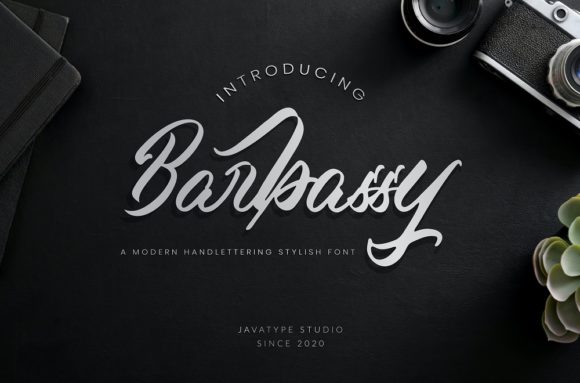
Embark on a typographic journey with Barbassy Font, a script font family that exudes timeless elegance and modern charm. Immerse yourself in the world of handwritten artistry, where each letter dances across the page with grace and fluidity. Created by the skilled hands of javatypestd, Barbassy is more than just a font – it's an experience that captivates the senses and leaves a lasting impression.
Step into a realm of creativity where Barbassy's delicate strokes and enchanting curves take center stage. Its meticulously crafted characters possess a raw, authentic charm that adds a touch of sophistication to any design project. Whether you're crafting wedding invitations that whisper romance, heartfelt thank-you cards that convey gratitude, or captivating quotes that inspire the soul, Barbassy is your perfect companion.
With Barbassy, your designs will transcend the ordinary and enter the realm of the extraordinary. Its versatility extends far beyond the confines of traditional handwritten fonts. It seamlessly adapts to a myriad of design genres, from logos that demand attention to business cards that leave a lasting impression. Unleash your creativity and let Barbassy guide you through a world of endless possibilities.
Indulge in the beauty of Barbassy's meticulously crafted glyphs, each one a testament to the font's unwavering commitment to quality. Its carefully balanced proportions and harmonious curves create a visual symphony that dances before the eyes. Whether you're a seasoned designer seeking to elevate your work or a budding artist exploring the depths of typography, Barbassy is the font that will ignite your passion and leave you spellbound.
So, immerse yourself in the world of Barbassy Font, where elegance, charm, and creativity converge. Let its delicate strokes and timeless beauty transform your designs into captivating masterpieces. Download Barbassy today and embark on a typographic journey that will redefine your creative horizons.